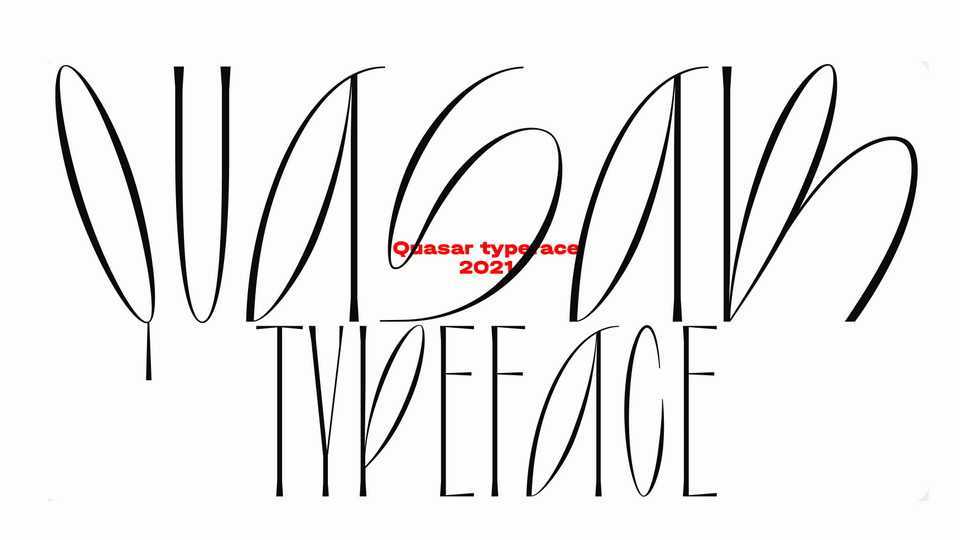
Download Quasar font, a modern version of the graceful antiqua. The serifs are kept to a minimum, and the sprawling loops make the Quasar bright and memorable.
Designer: Viktor Pesotsky